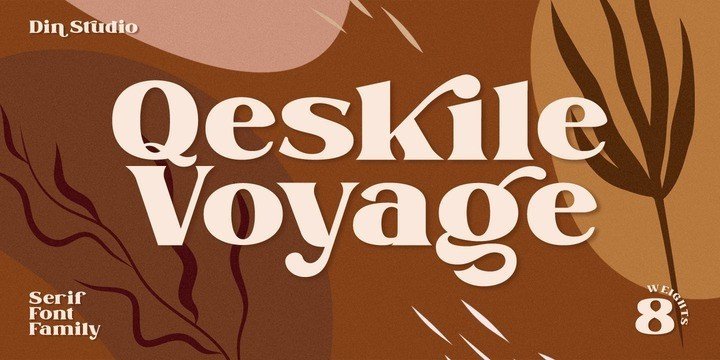
Qeskile Voyage Serif Font is a geometric serif font family with maintains rationality in designing each form. With use the sharpness of the eyes, and remain logical, so that balance is maintained in each form. So, it will get a clean, neat, and perfect shape.
Qeskile Voyage is a serif Font from the designer Din Studio. Features with 8 fonts. This family also featured with many ligatures and alternates. The unique typeface will make your design more powerful. the font suitable for any project like web, signage, corporate as well as for editorial design and many others.